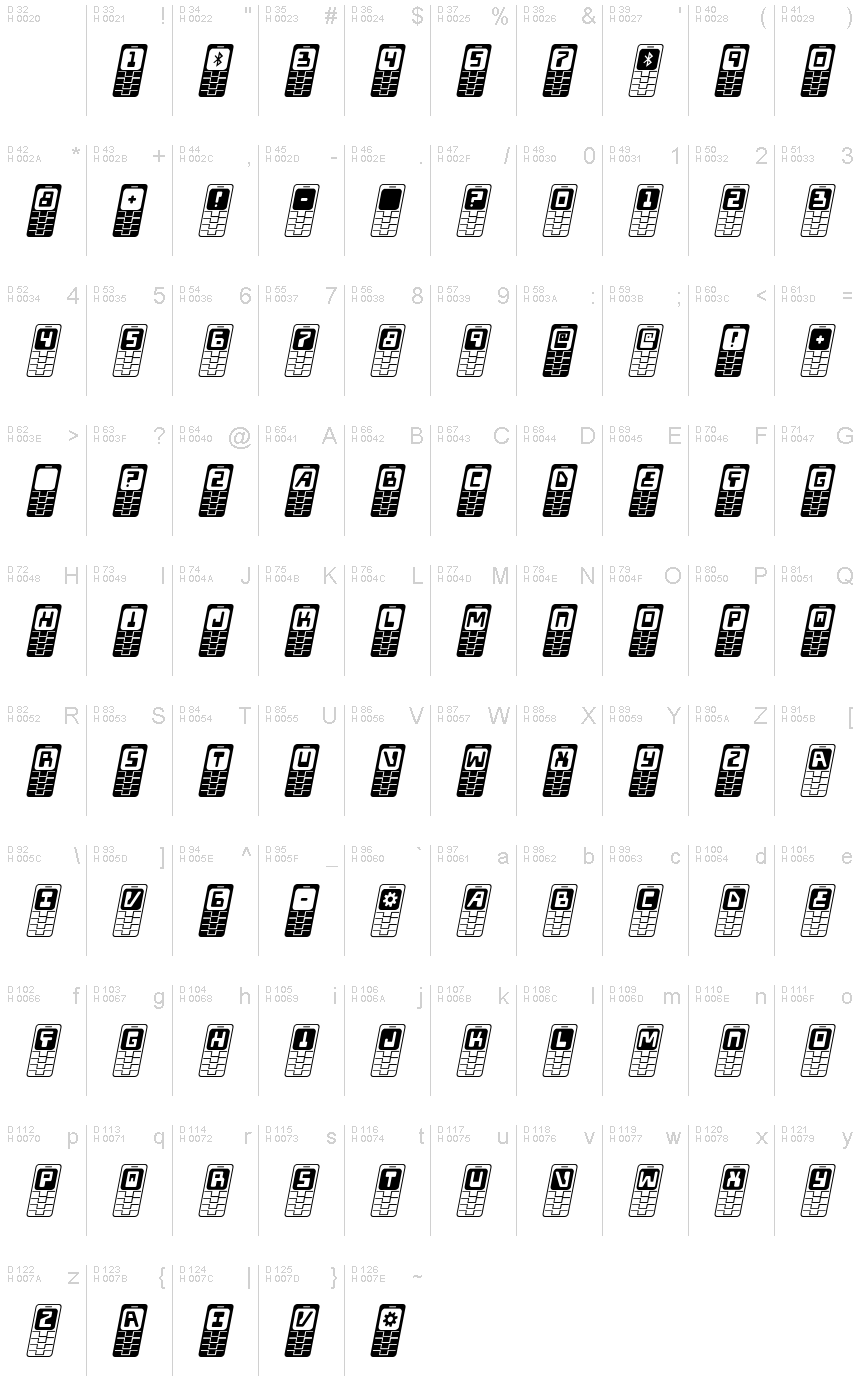
Hola Mota Italic
The Hola Mota Italic font by Iconian Fonts is a captivating display typeface that exudes a playful and dynamic energy. With its bold, angular letterforms and distinctive character quirks, this font commands attention and evokes a sense of whimsy. The clean lines and balanced proportions give the design a visually striking yet harmonious appearance, making it an excellent choice for a variety of design applications.
Hola Mota Italic's versatility shines through, making it a compelling option for attention-grabbing headlines, eye-catching logos, and impactful branding elements. Its decorative nature lends itself well to packaging design, event materials, and digital interfaces where a touch of playfulness and flair is desired. Effortlessly blending style and function, the Hola Mota Italic font is a dynamic tool for designers seeking to inject a dose of personality and creativity into their projects.